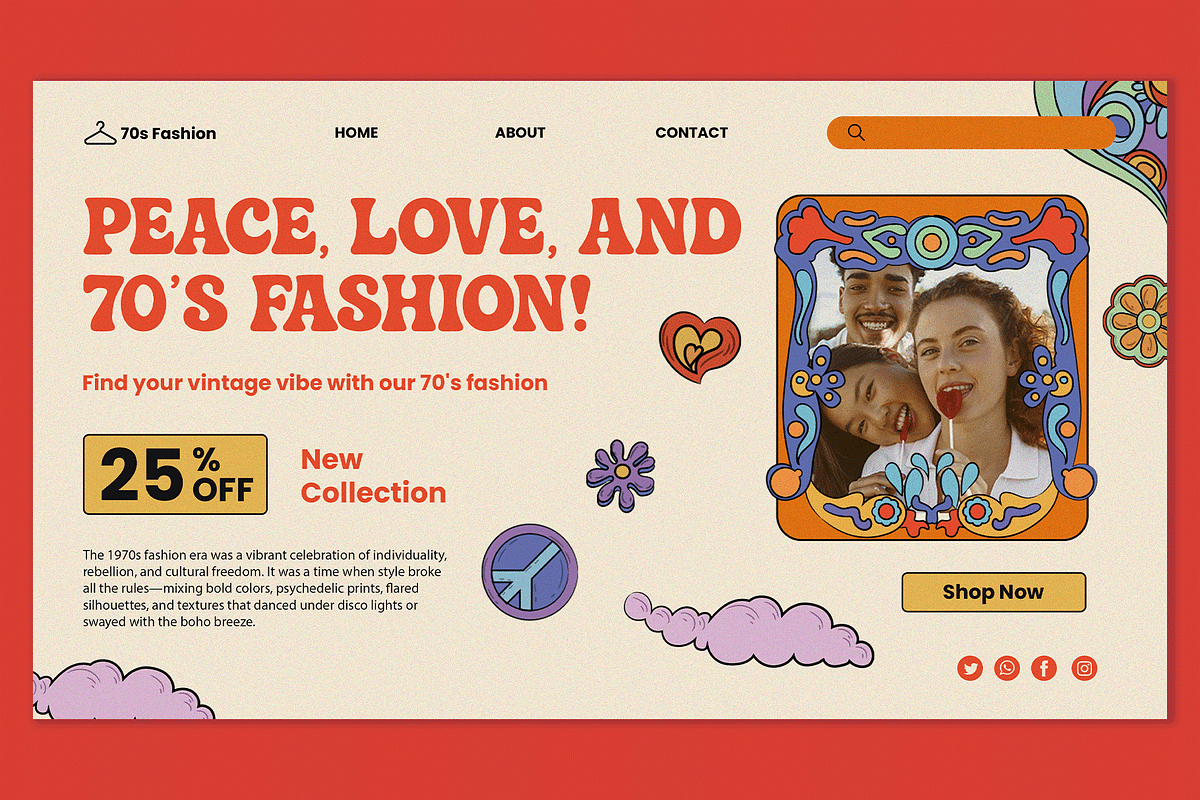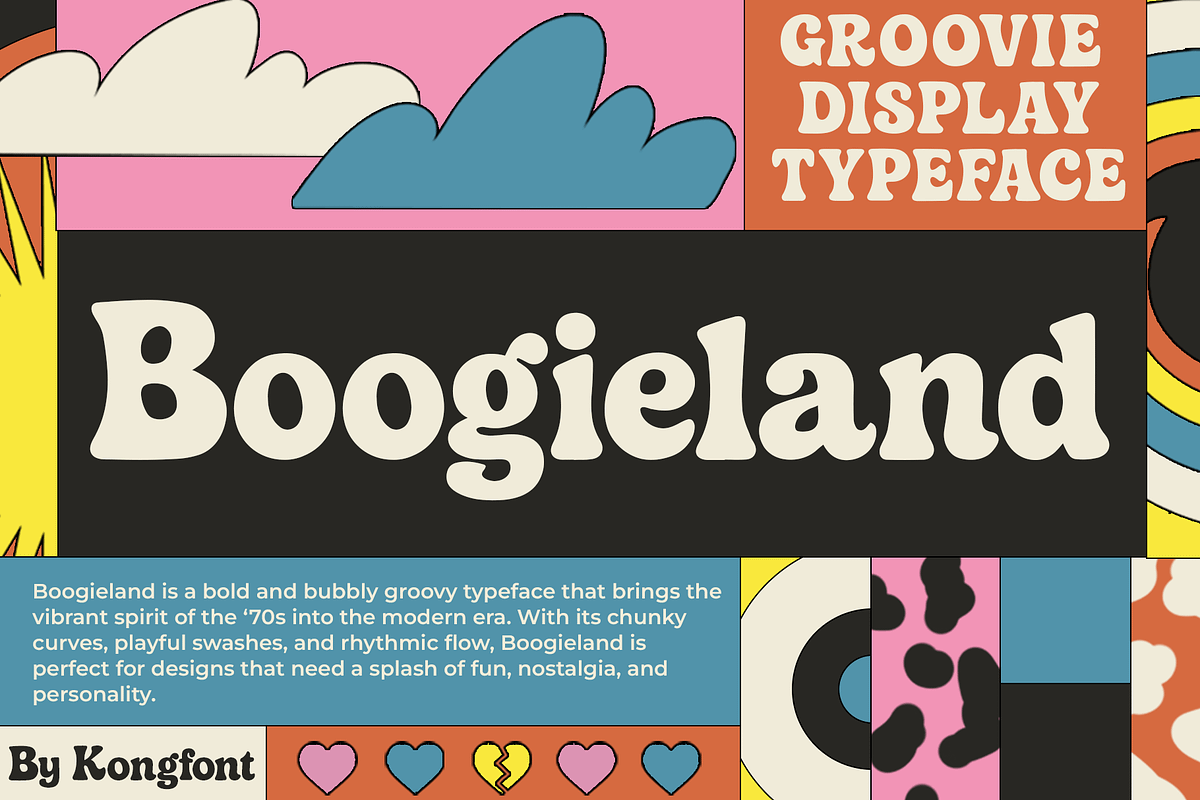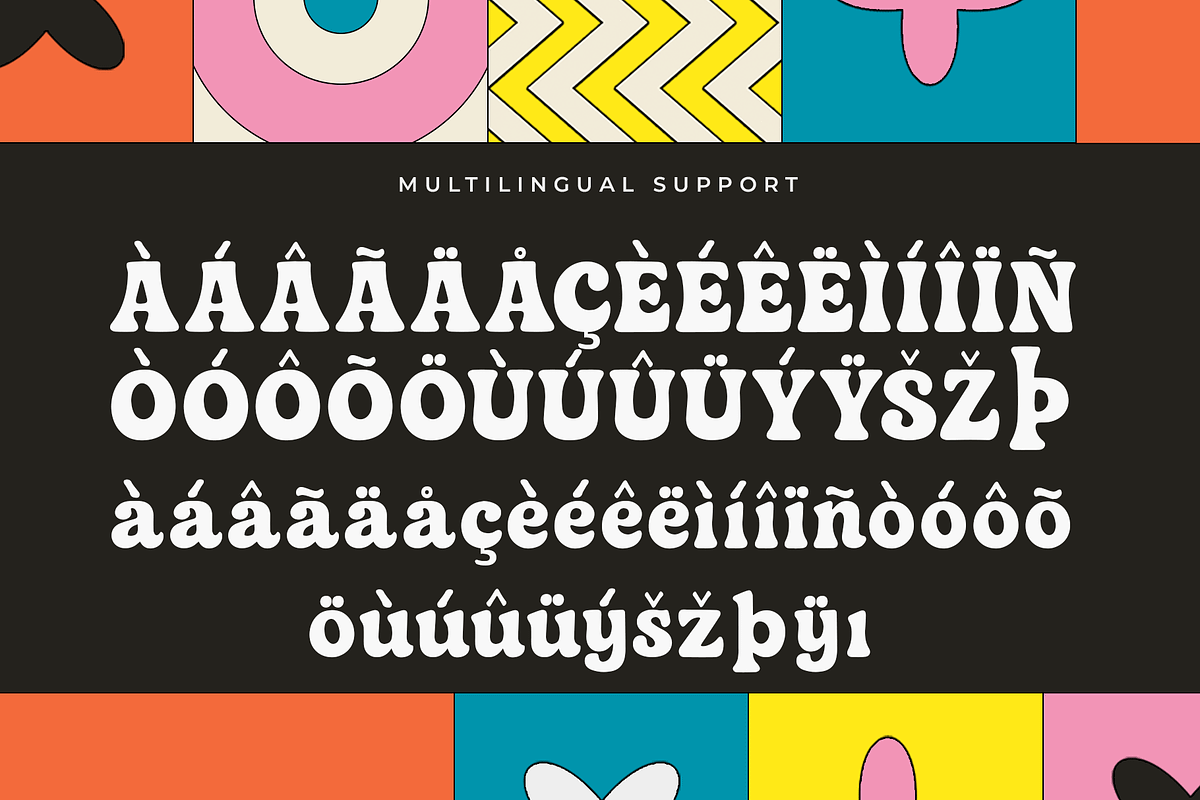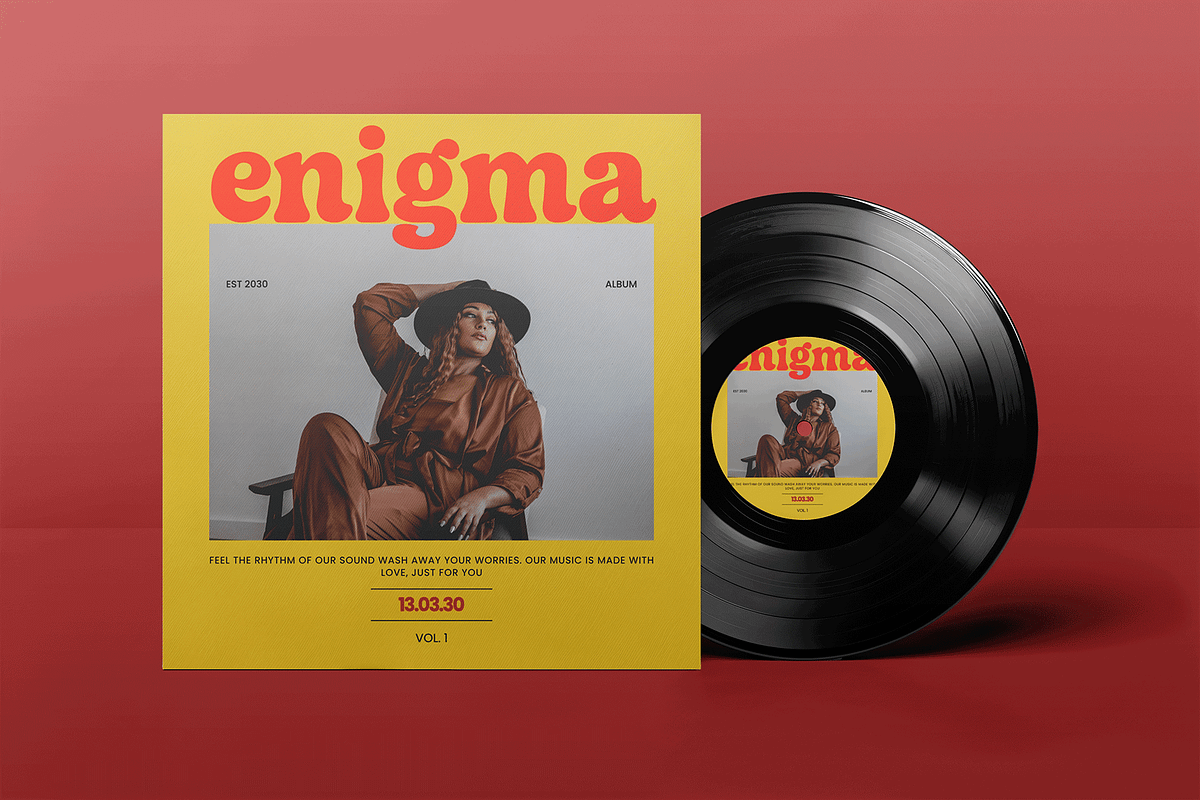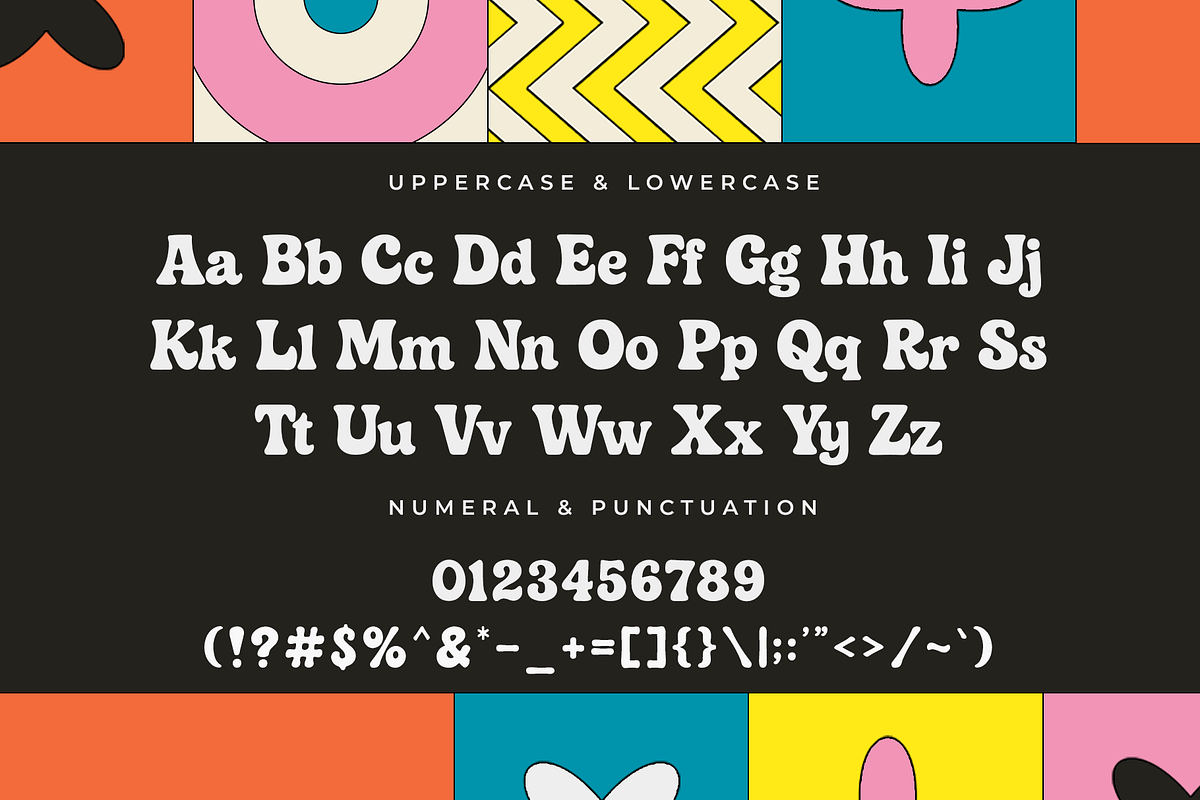
Boogieland – Groovie Retro Display
Boogieland – Groovie Retro Display Typeface
Boogieland is a groovie display typeface that dances with retro energy and funky flair. Inspired by the bold curves and psychedelic spirit of the '60s and '70s, this font bursts with character, making it perfect for music posters, vintage logos, party invites, and bold branding.
With smooth, rounded letterforms and an unmistakable retro rhythm, Boogieland adds instant personality to any design looking to channel nostalgia and good vibes.